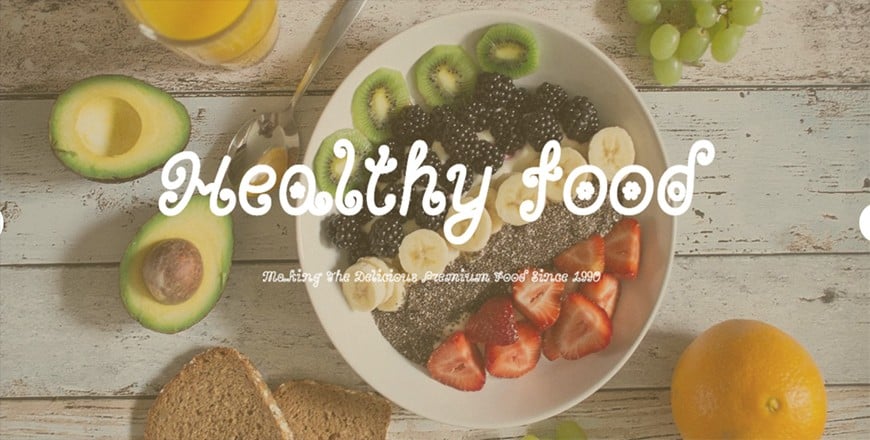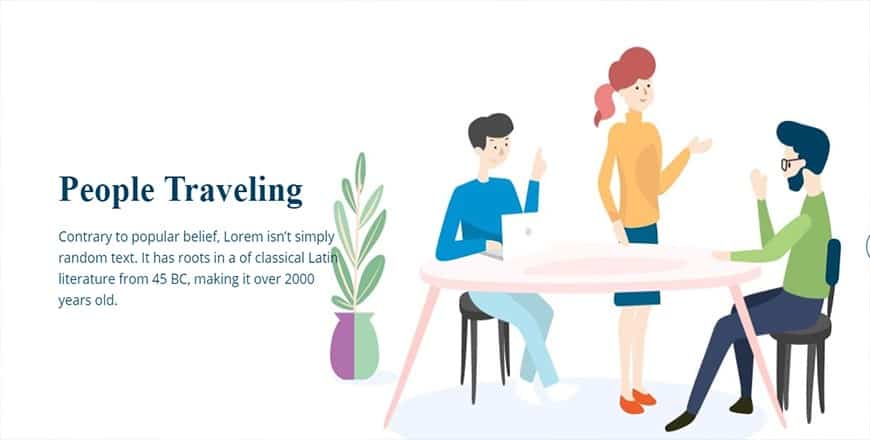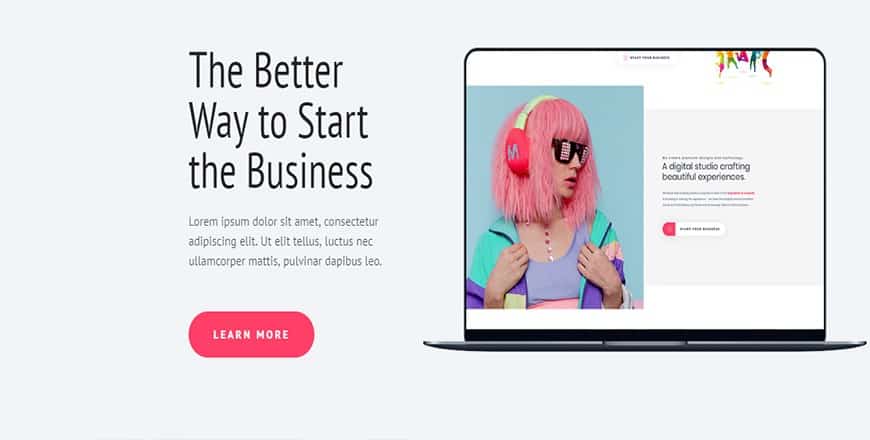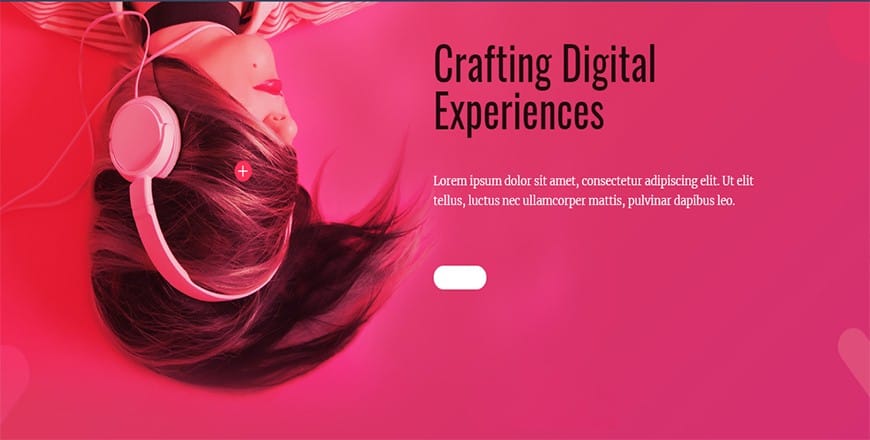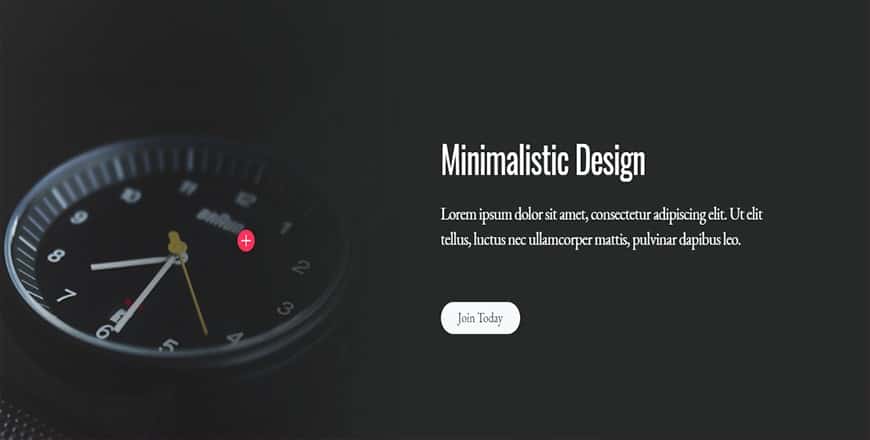
When I am writing this blog post, there are already 940 font families available on the Google Font website for absolutely free to use. So, it is usual to get confused about which one to choose as there is a lot of choices.
Choosing a font or a font combination is more than just an artistic choice – it can have a real impact on your site's bounce rates and conversion rates, especially if you choose a font that's tough for your visitors to read.
Typography can make a presentation either engaging or unattractive, it depends on your font selection. You can work for hours on templates and colors, but if you choose illegible or funky fonts, it can hurt your presentation.
Which is why you might be looking for someone to help you find that needle in a haystack.
So, here I am! Let's find the needle that you are searching for.
15 Best Google Font - 2024
Roboto
Category: Sans Serif
Style: 12
Designer: Christian Robertson
Roboto is the number one trending, most popular, and downloaded font in Google's typeface library by far. It is a sans-serif offering from Christian Robertson that was developed by Google as the system font for Android.
Now, it is massively popular with 8,815,706,439,761 😲 views and counting. Roboto is featured in more than 26,000,000 websites. That's a huge number, right?
Open Sans
Category: Sans Serif
Style: 10
Designer: Steve Matteson
Open Sans is ranked fourth in the trending list, but in terms of popularity, it almost catches Roboto. It got the second-highest views after Roboto and featured in more than 25,000,000 websites.
Google itself uses Open Sans on some of its websites, as well as in it's print and web ads.
Category: Sans Serif
Style: 10
Designer: Łukasz Dziedzic
Lato is featured in more than 12,000,000 websites. It's also used in Slack.
With updates as recent as 2014, Lato features slightly rounded strokes, and according to the designer, it gives a "feeling of warmth." Interestingly, that's reflected in its name: "Lato" is a Polish word, and it means summer.
Category: Sans Serif
Style: 18
Designer: Julieta Ulanovsky
Montserrat is a sans serif last updated in 2017 with 18 different styles, that means you have quite a lot of choice.
It's a love letter to the early-20th-century typefaces that used to be found all over the South American city. It is featured in more than 9,400,000 websites.
Roboto Condensed
Roboto Condensed is the product that is designed by the same designer as the Roboto. It is massive popular nowadays with more than 4B number of times Google Fonts API served over the last week.
Roboto Condensed is featured in more than 2,700,000 websites. This is the Condensed family, which can be used alongside the normal Roboto family and the Roboto Slab family.
Playfair Display
Category: Serif
Style: 6
Designer: Claus Eggers Sørensen
Playfair is a transitional design. Basically, it is more used in printing technology, ink, and paper-making. Playfair Display is featured in more than 5,000,000 websites. Thus you can easily realize its demand around all over the world.
Bonbon
Category: Handwriting
Style: 1
Designer: Cyreal
Bonbon is a fancy handwriting font for cheerful and bright headlines. It is featured in more than 15,000 websites. It looks charismatic in print items- making it an excellent choice for appealing product design, greeting cards, or titling in children's books.
Oswald
Category: Sans Serif
Style: 6
Designer: Vernon Adams
Oswald is featured in more than 8,300,000 websites. It is an homage to the Alternate Gothic typeface family. Oswald is designed to be used freely across the internet by web browsers on desktop computers, laptops, and mobile devices.
Source Sans Pro
Category: Sans Serif
Style: 12
Designer: Paul D. Hunt
Open Sans Pro was created for Adobe and was Adobe's first open-source font. The font is an incredibly popular one with more than 4.3 million websites leveraging the typeface.
Raleway
Category: Sans Serif
Style: 18
Designer: Matt McInerney
Initially designed by Matt McInerney as a single thin weight, it was expanded into a 9 weight family by Pablo Impallari and Rodrigo Fuenzalida in 2012 and iKerned by Igino Marini.
It also has a sister family, Raleway Dots. It has 18 font style that means you have a lot of alternatives to choose from.
Merriweather
Category: Serif
Style: 8
Designer: Sorkin Type
Merriweather is a serif font that was designed for reading on screens. It is featured in more than 3,500,000 websites. It has achieved total 323,676,382,928 views till to date.
Using Google Font on Joomla website is extremely easy. It will easily increase your website attractiveness with minimal effort. Earlier we wrote a tutorial on How to Add Google Font on Joomla Website. Follow some simple steps to add Google Font to your Joomla website.